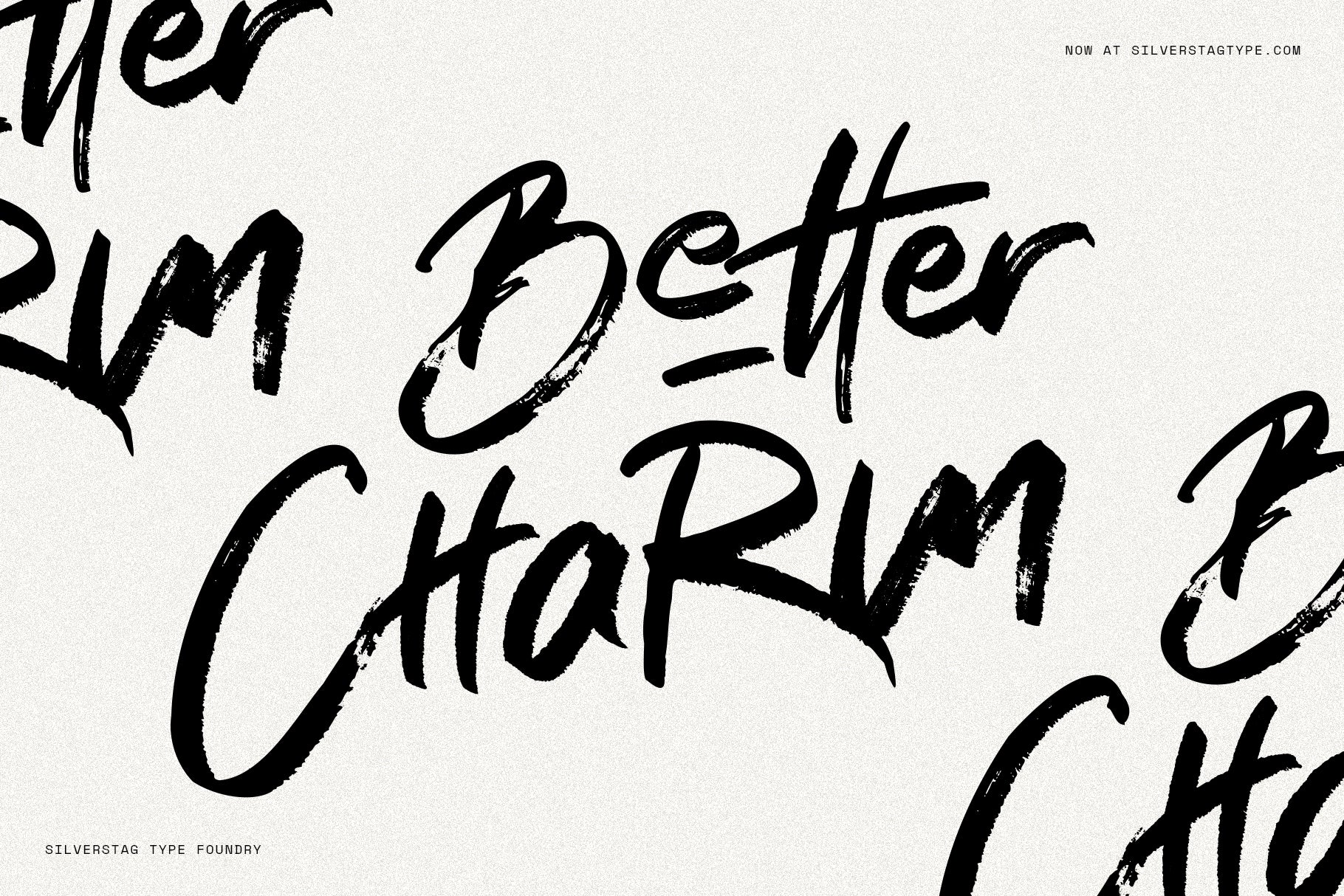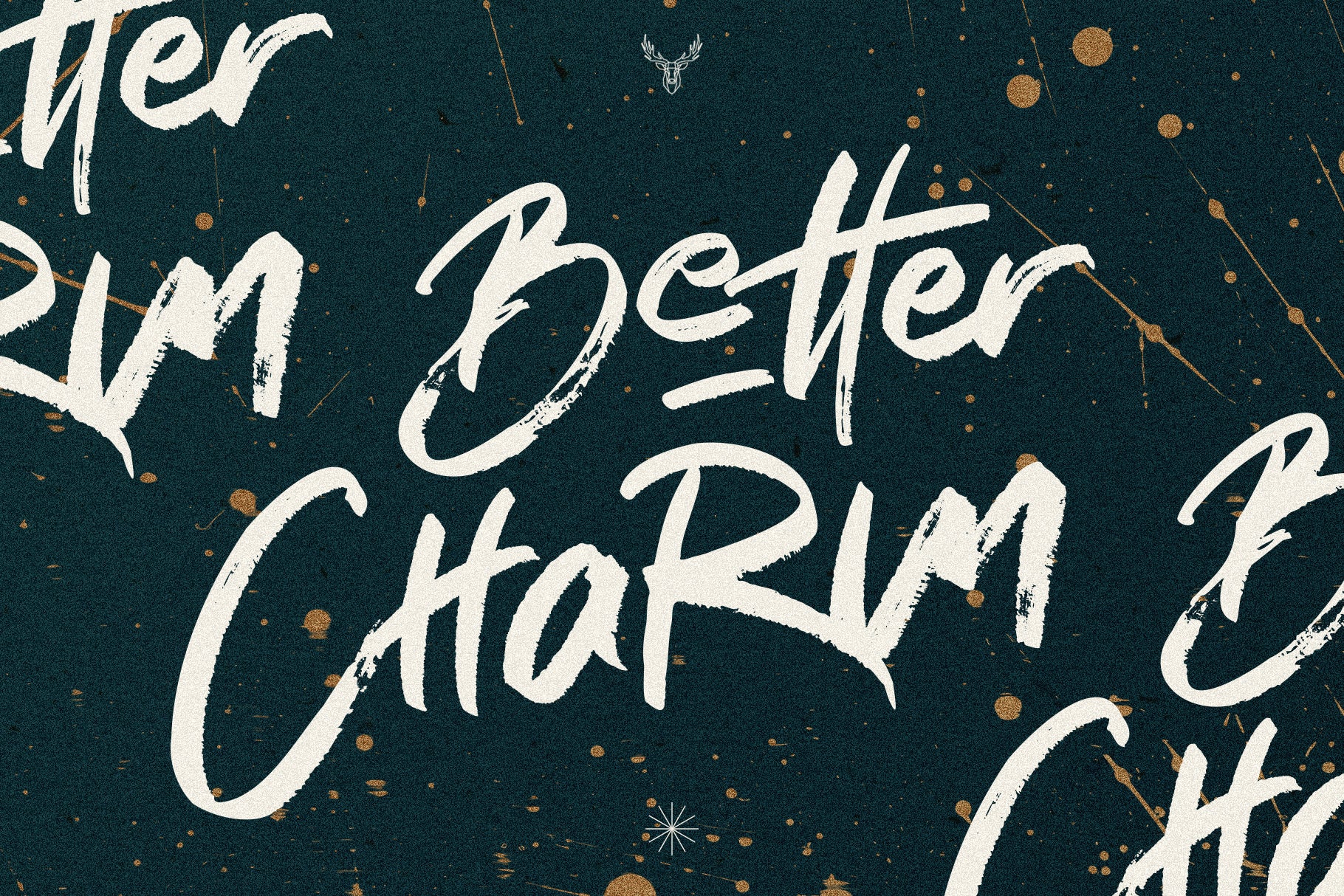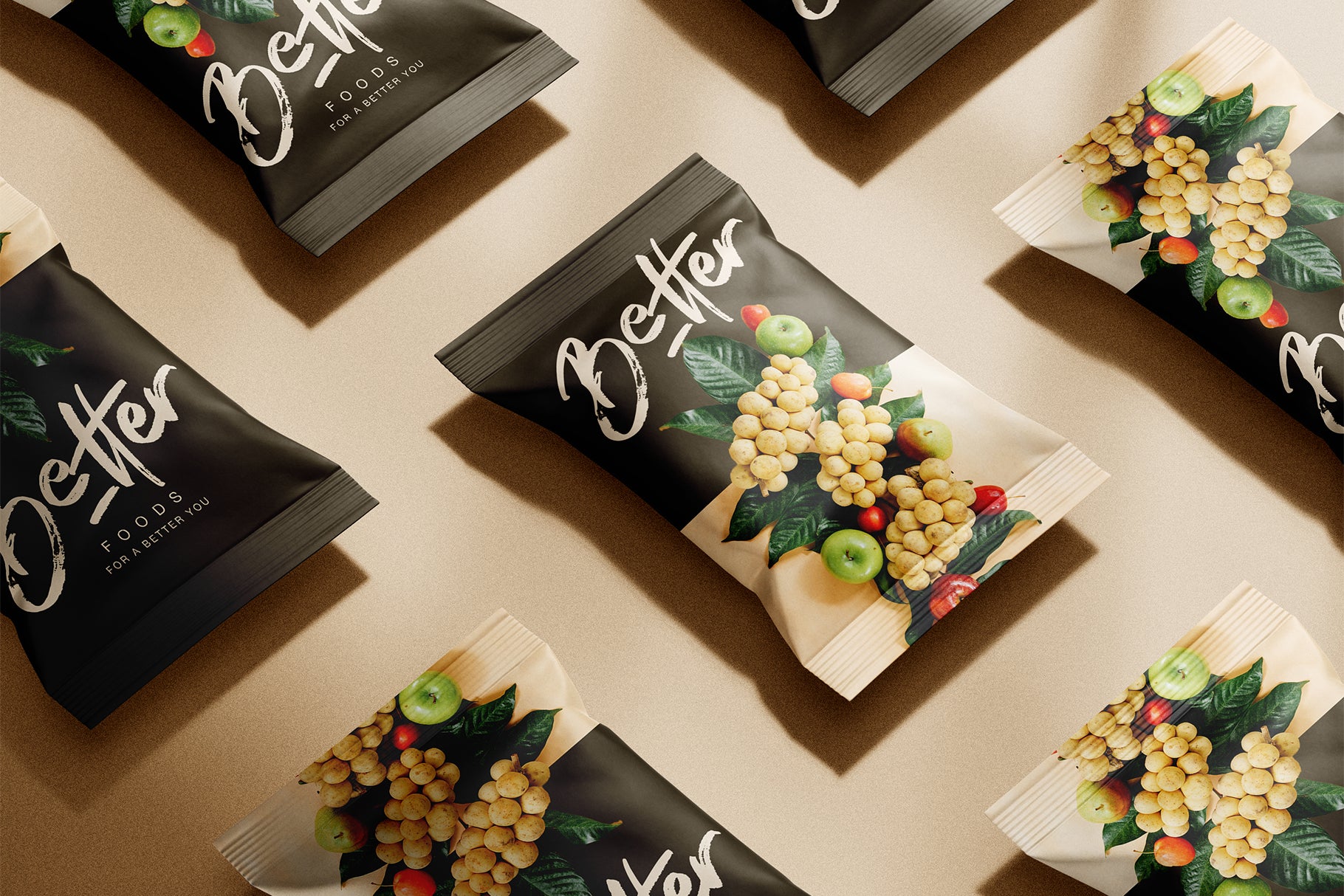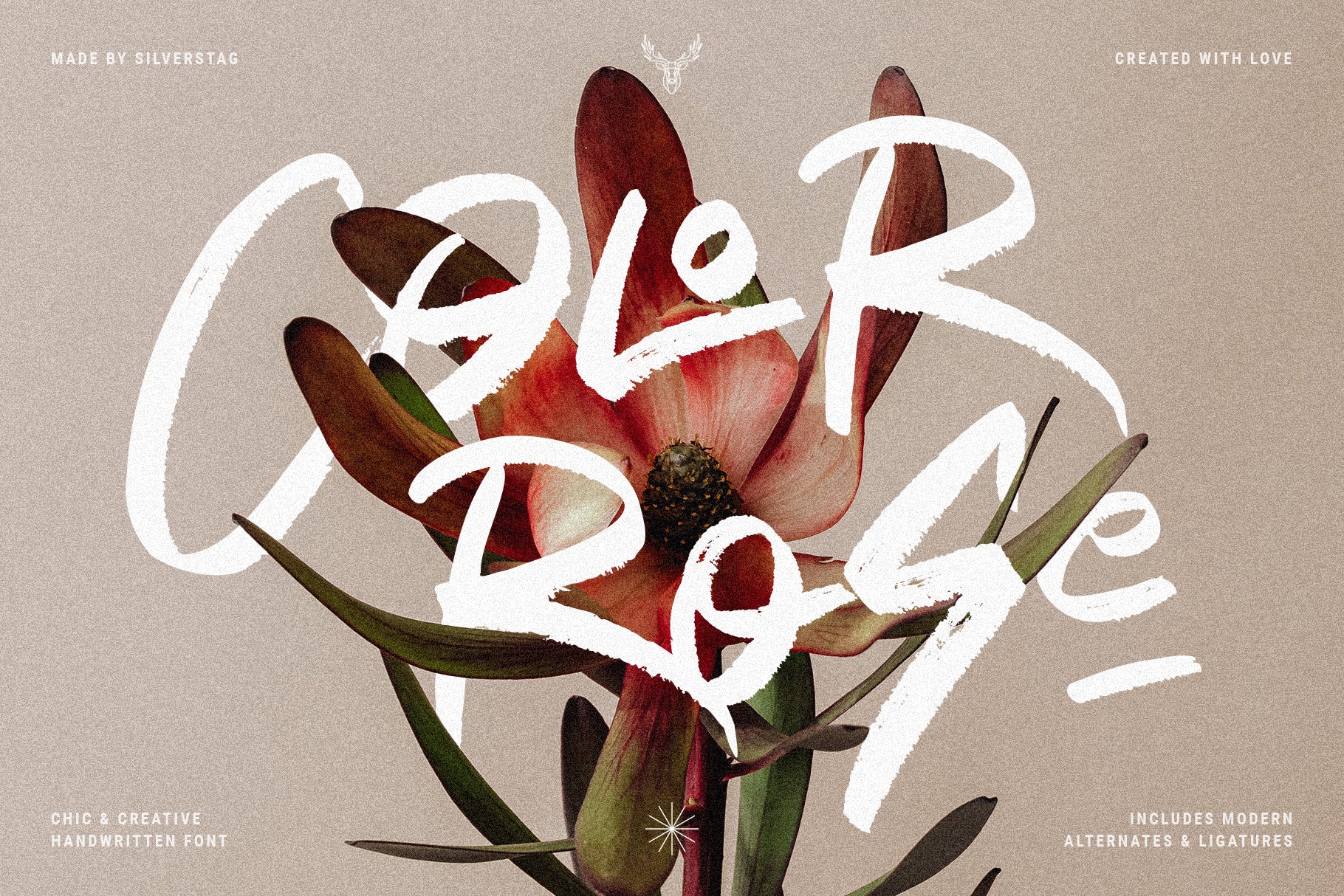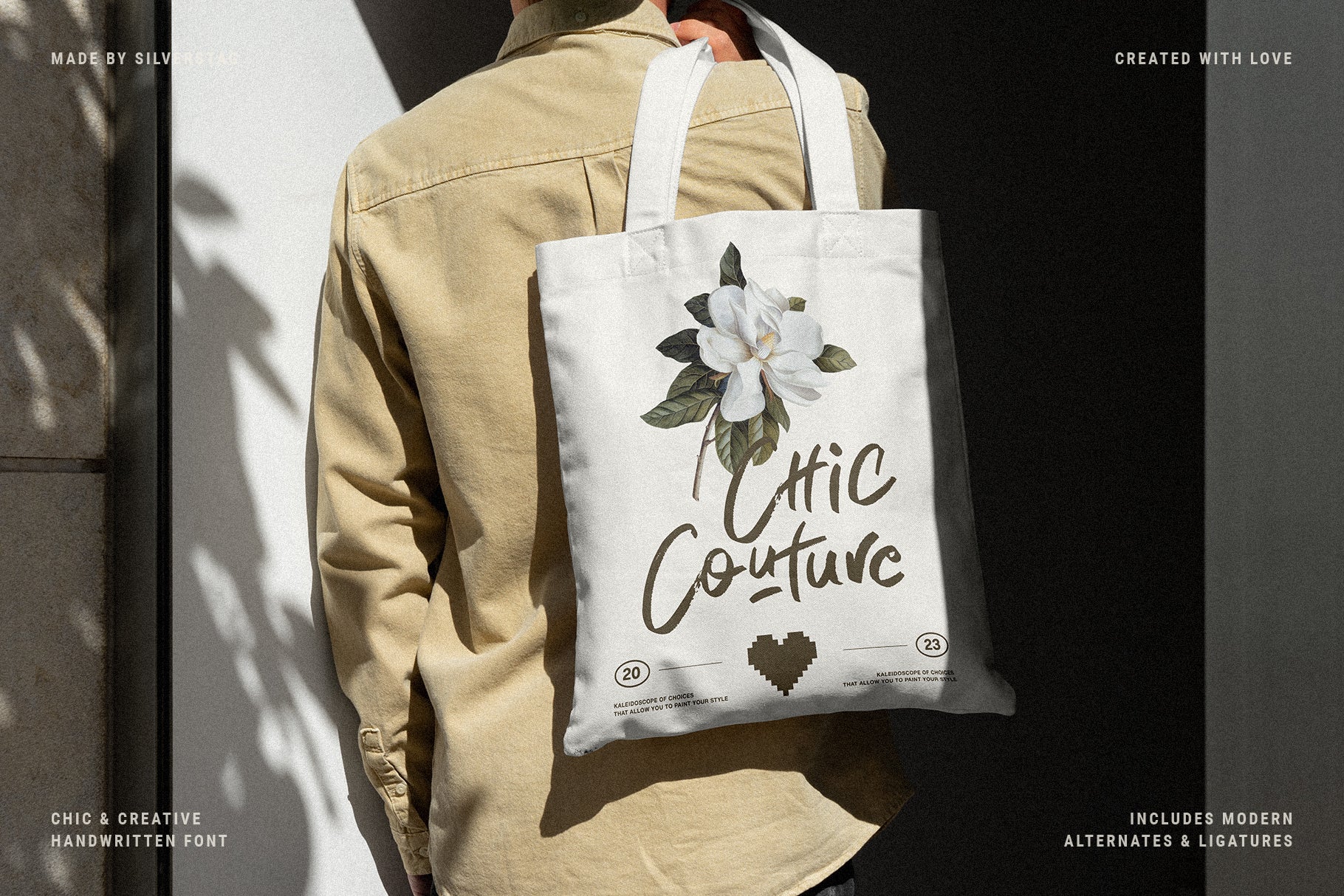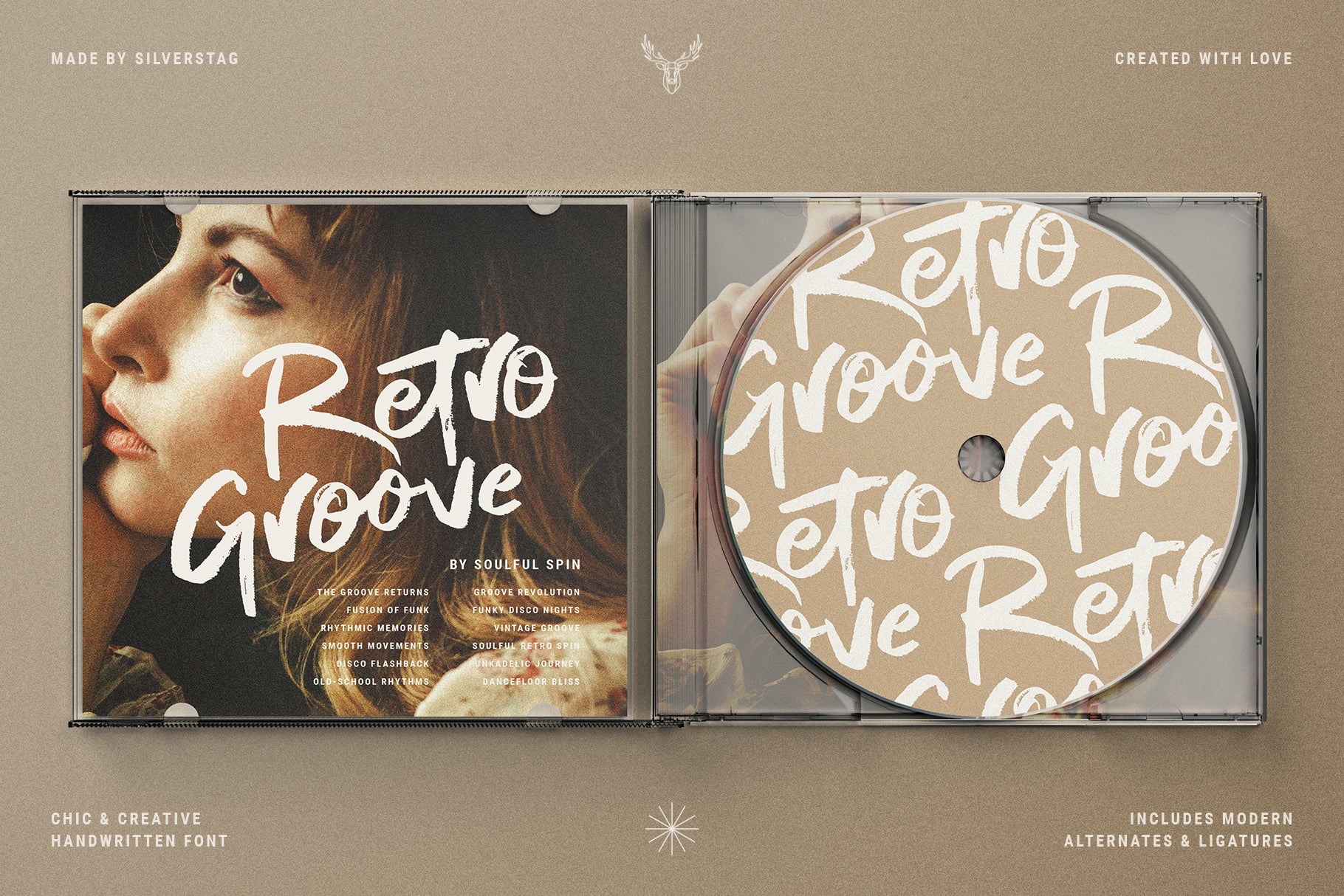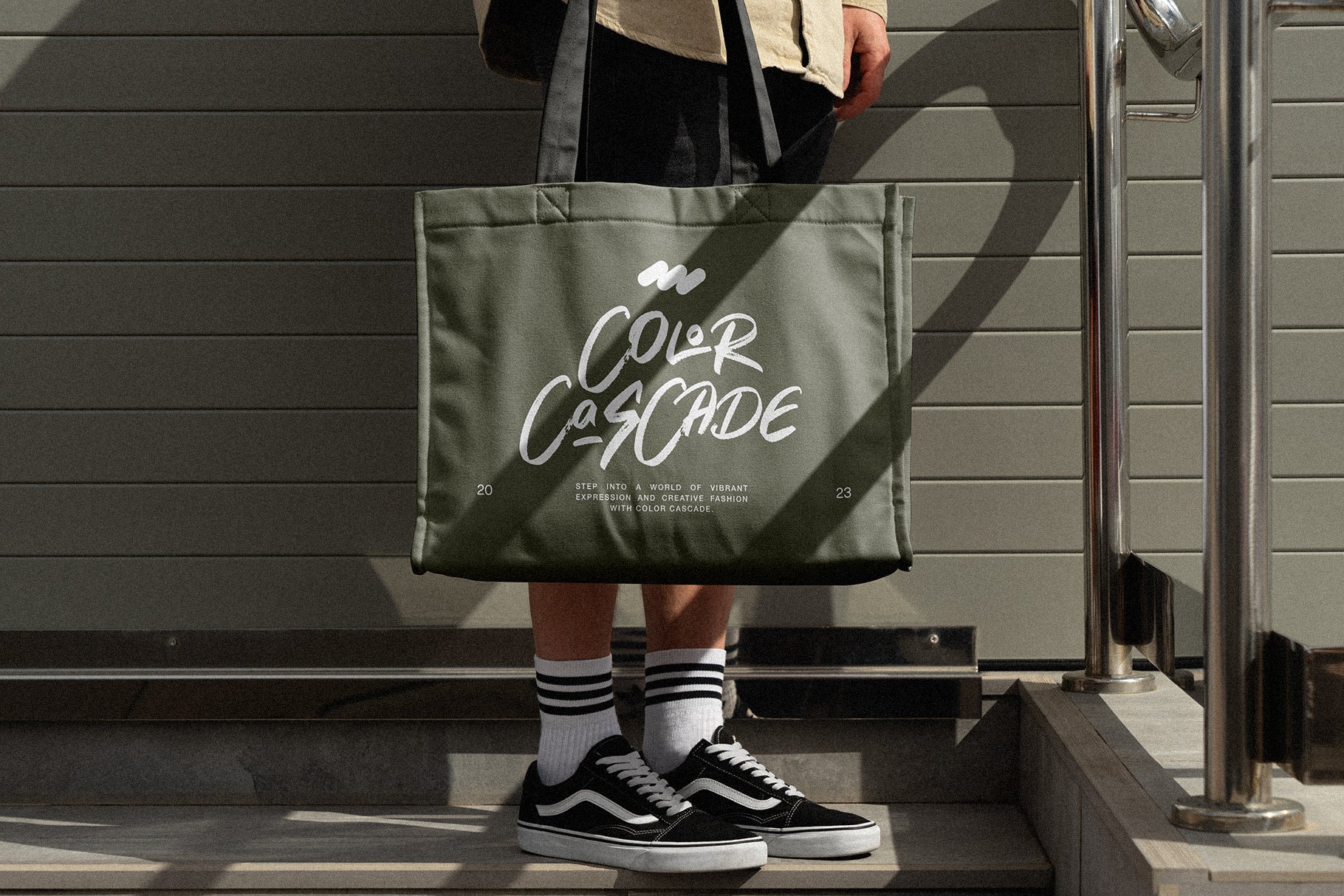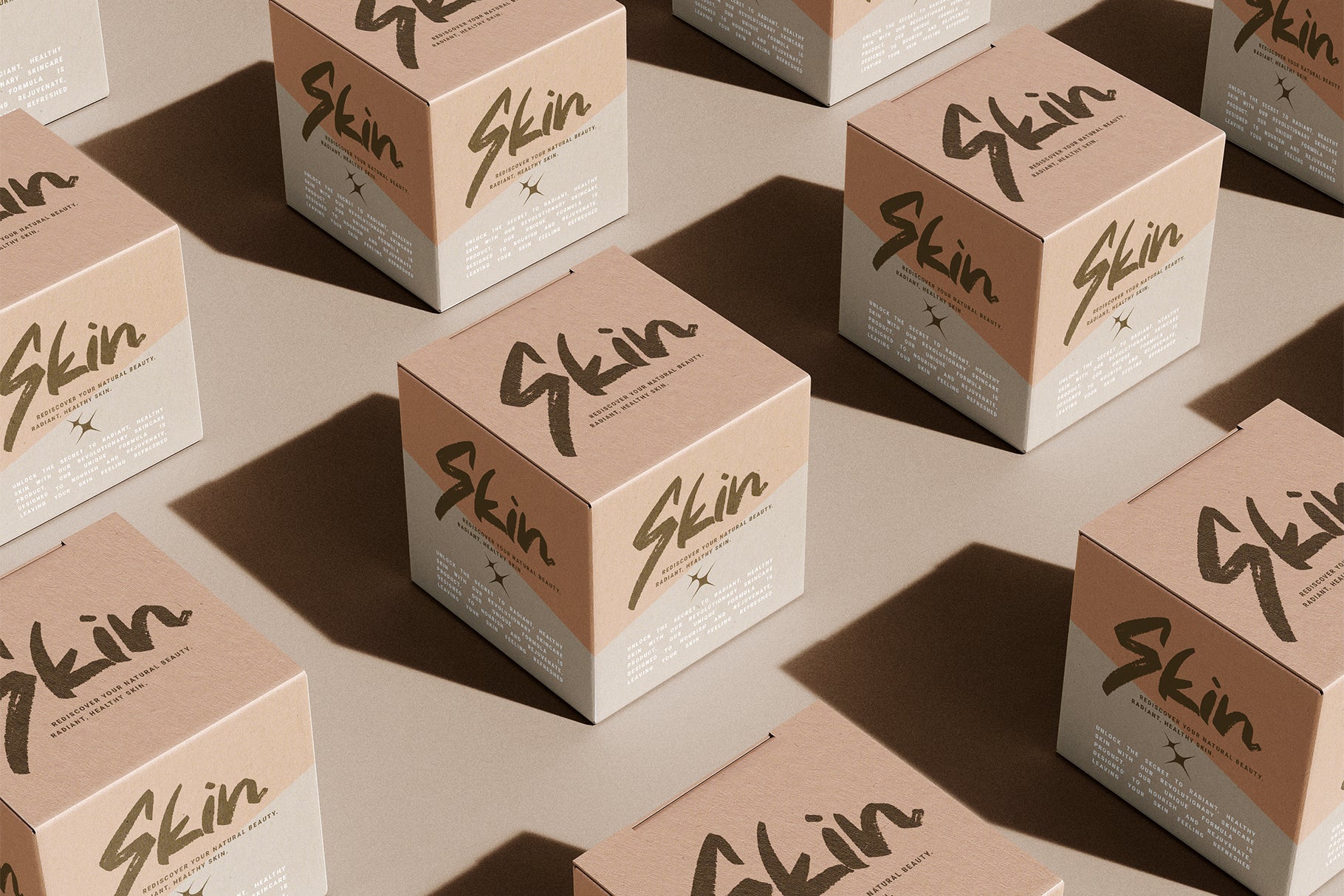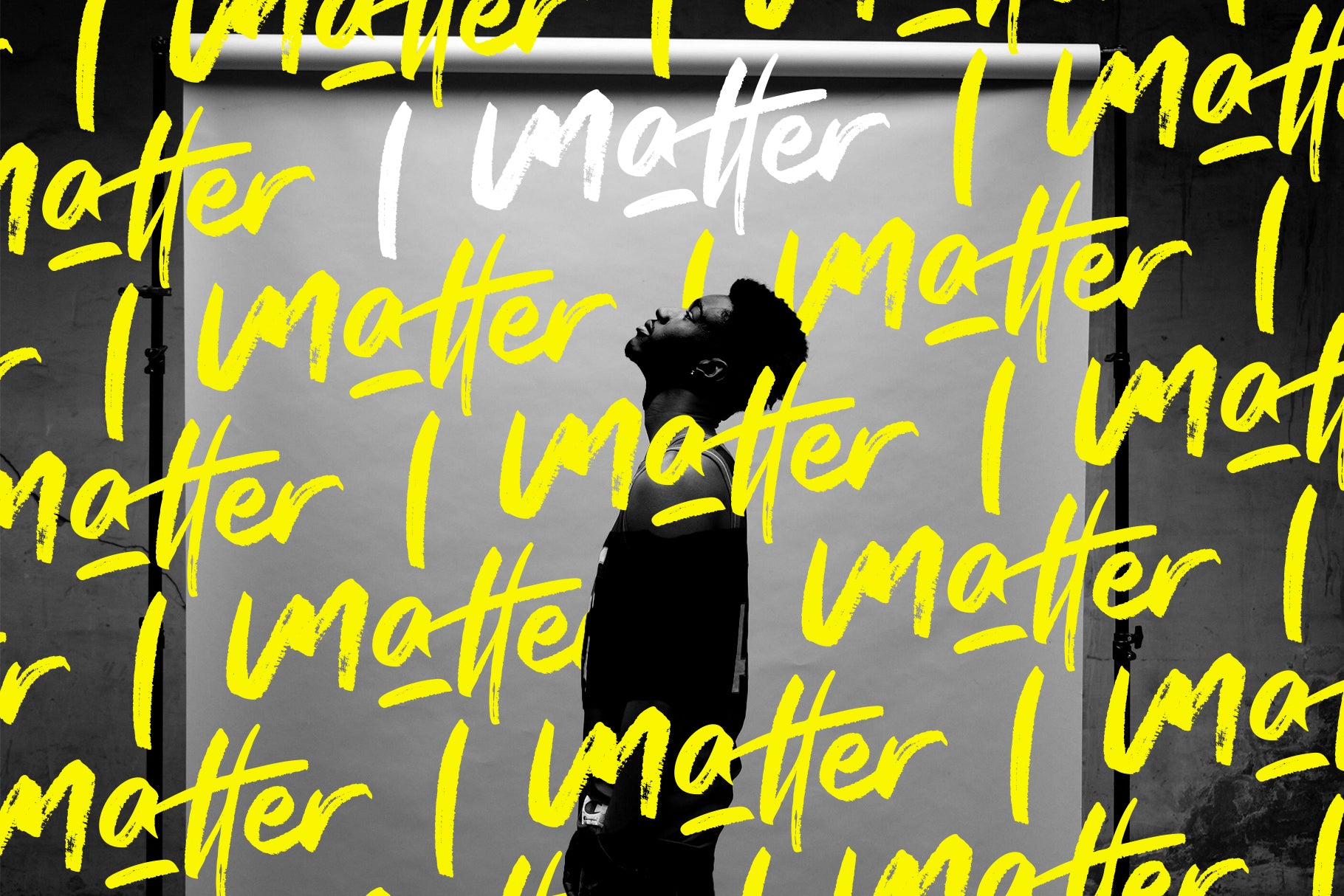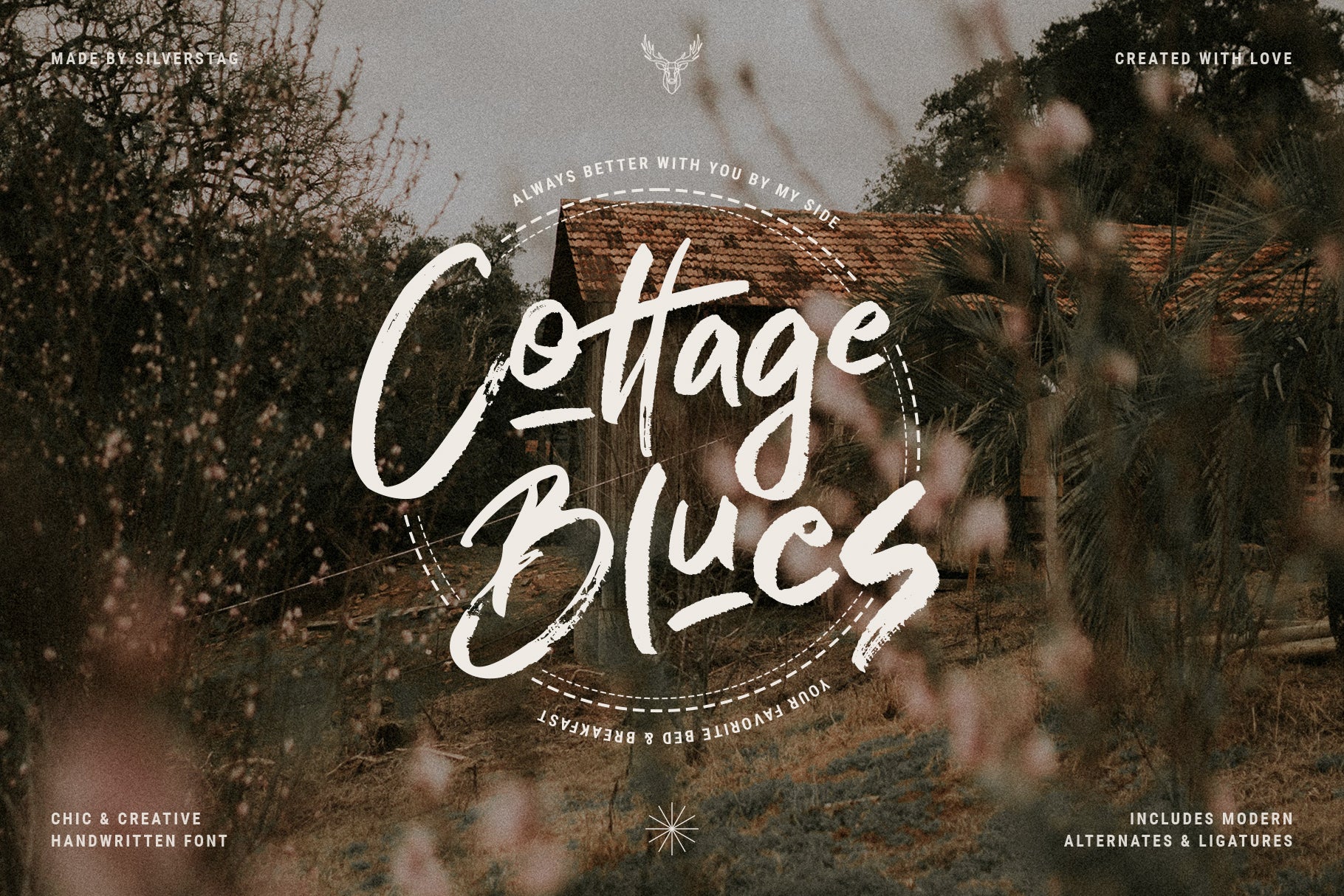
Better Charm is a modern handwritten brush font designed to bring expression, energy, and a personal touch to your typography. Crafted with dynamic strokes and natural movement, this font is ideal for creative projects that call for authenticity and flair—like social media graphics, invitations, posters, and expressive branding.
Better Charm includes over 160 ligatures and stylistic alternates, allowing you to create designs that feel fresh, handcrafted, and completely unique. Each letterform has been drawn with a lively rhythm and slight imperfections that give your text warmth and character.
Whether you’re building a playful brand identity or creating bold quotes for digital platforms, this handwritten font adds charm, personality, and visual impact to any layout.
Currently supporting the English alphabet, Better Charm is ready to be your go-to typeface for stylish, brush-driven design work.